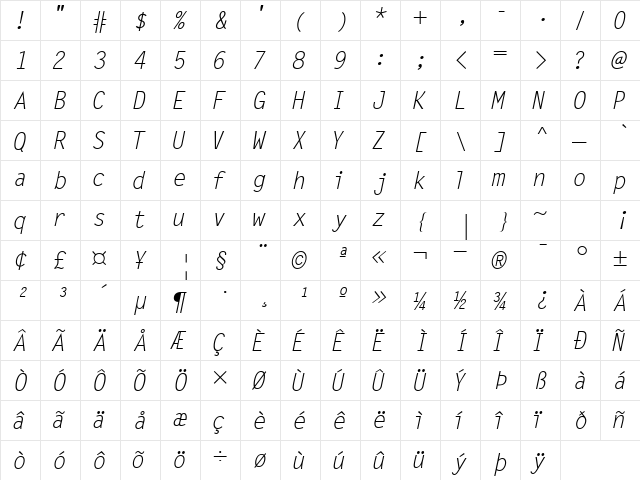
MicrofineSSK Italic
Design Context for MicrofineSSK Typeface
MicrofineSSK takes a measured approach to typography — its balanced proportions and neutral character make it a reliable workhorse for both digital and print work. Its italic angle brings a sense of urgency and motion to the letterforms.
Pro Tip: Try MicrofineSSK for annotation and caption copy alongside an upright companion — the contrast in angle creates a dynamic but ordered typographic system.